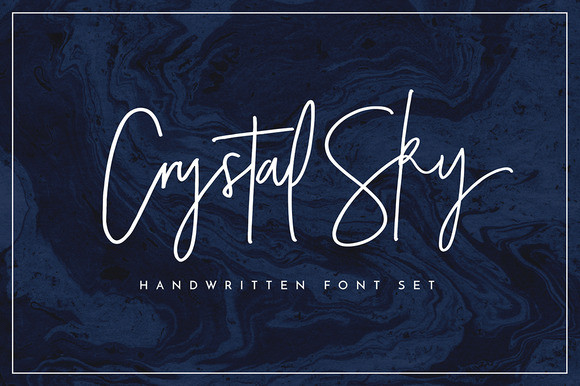
Add a little sparkle to your designs with Crystal Sky! A clean & classy signature-style font set, perfect for creating authentic hand-lettered text quickly & easily.
With exaggerated strokes and an extra bouncy baseline, Crystal Sky has an unmistakable charm; perfect for logos, headers, company or personal branding, product packaging, cards & handwritten quotes.
Crystal Sky is packed full of great features to give you plenty of customisation options;
Lowercase Alternates • Crystal Sky comes with an entire alternate lowercase glyph set. This is accessible simply by turning on 'Stylistic Alternates' in any software with OpenType capabilities. For anyone having trouble accessing the alternates via this method, I've included them as their own separate font file - just install this as normal and select 'Crystal Sky Alt' in your text-tool
All-Caps Version • Have you ever noticed that script fonts tend to be a bit tricky when it comes to typing in all-caps? That's why I've included a totally separate set of A-Z letters - designed to work in harmony with each other during those moments when you need to hit your caps-lock button and go a bit wild!
Bonus Doodle Pack • Need a bit more visual appeal to your text? I've also included a bonus vector pack which includes 32 hand-drawn doodles, these are the perfect companion to Crystal Sky for when you need to add some light-hearted fun to your design.
Large Glyph Set • Crystal Sky comes with a large range of glyphs including punctuation, numerals, international language support, ligatures & additional extra glyphs for some lowercase characters.